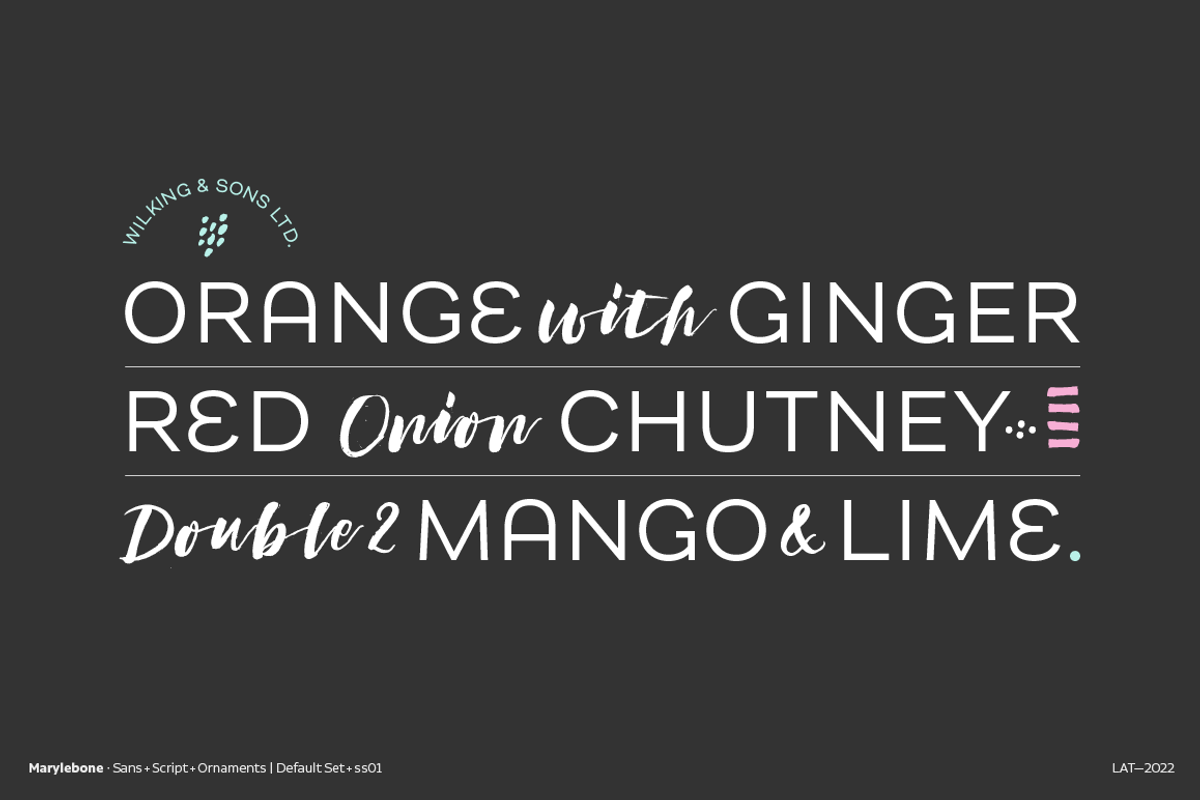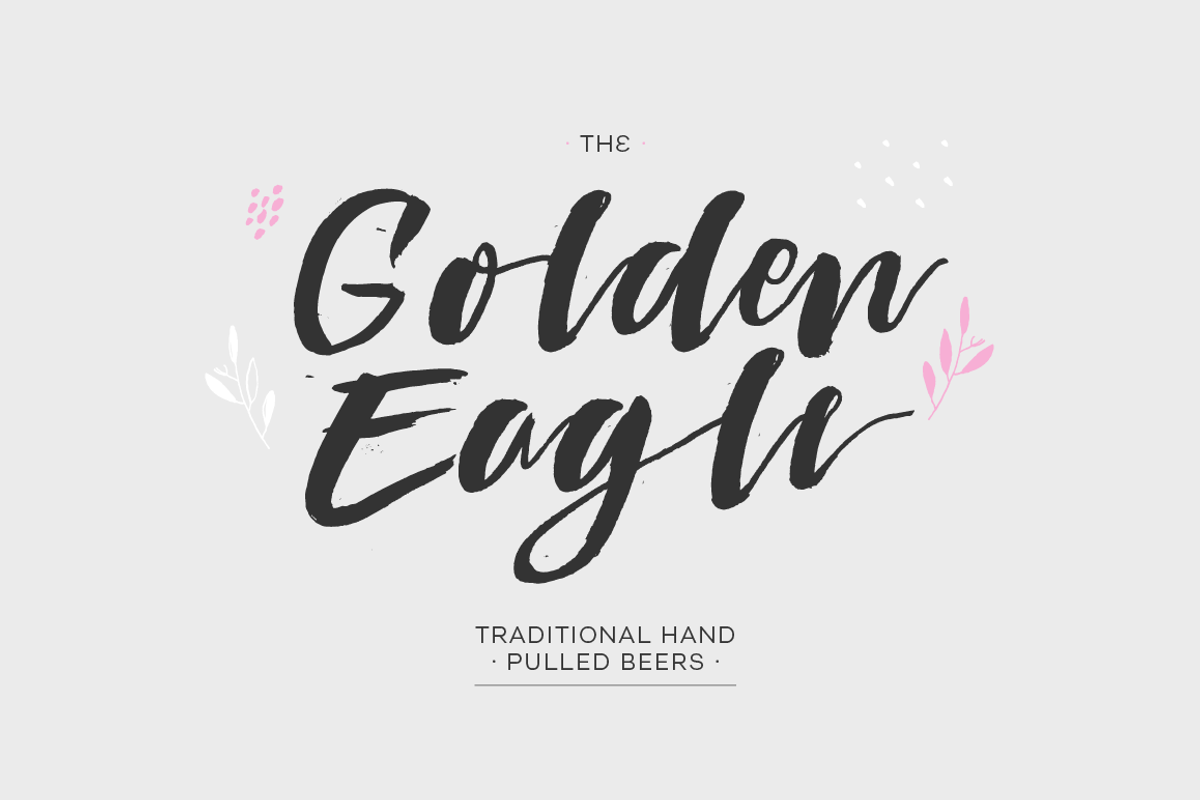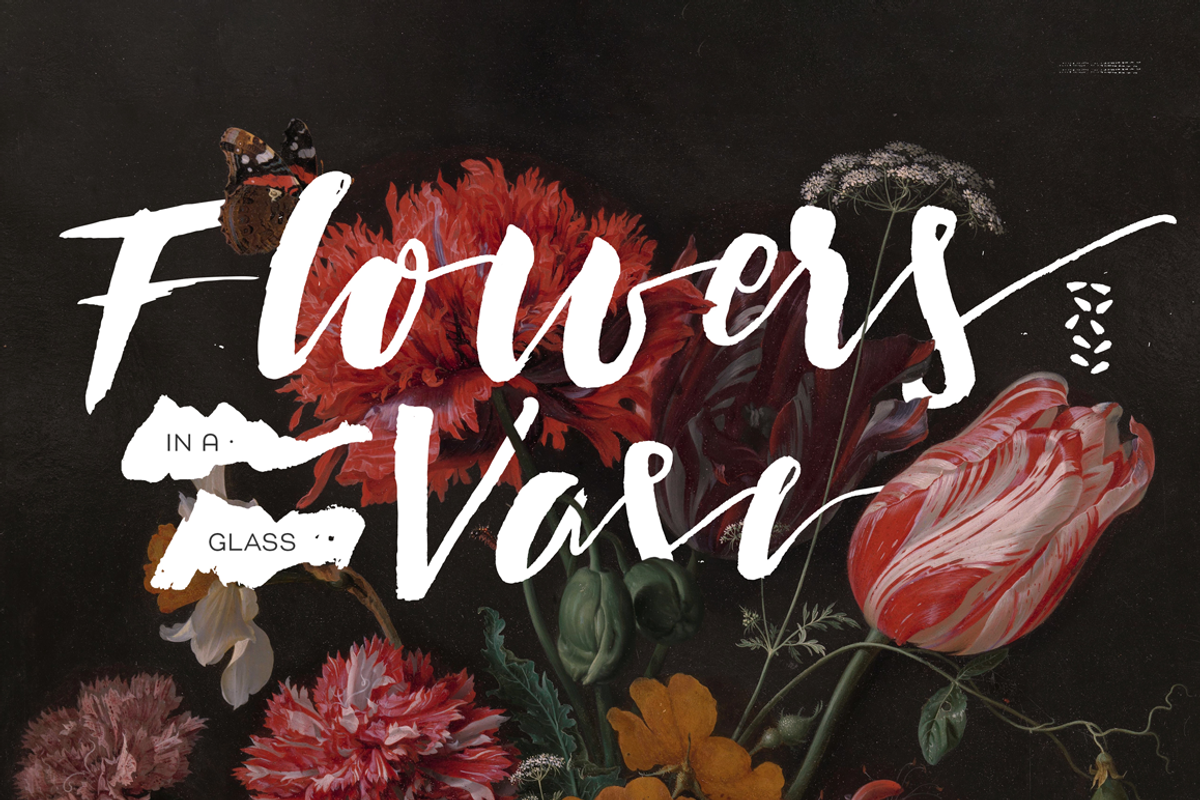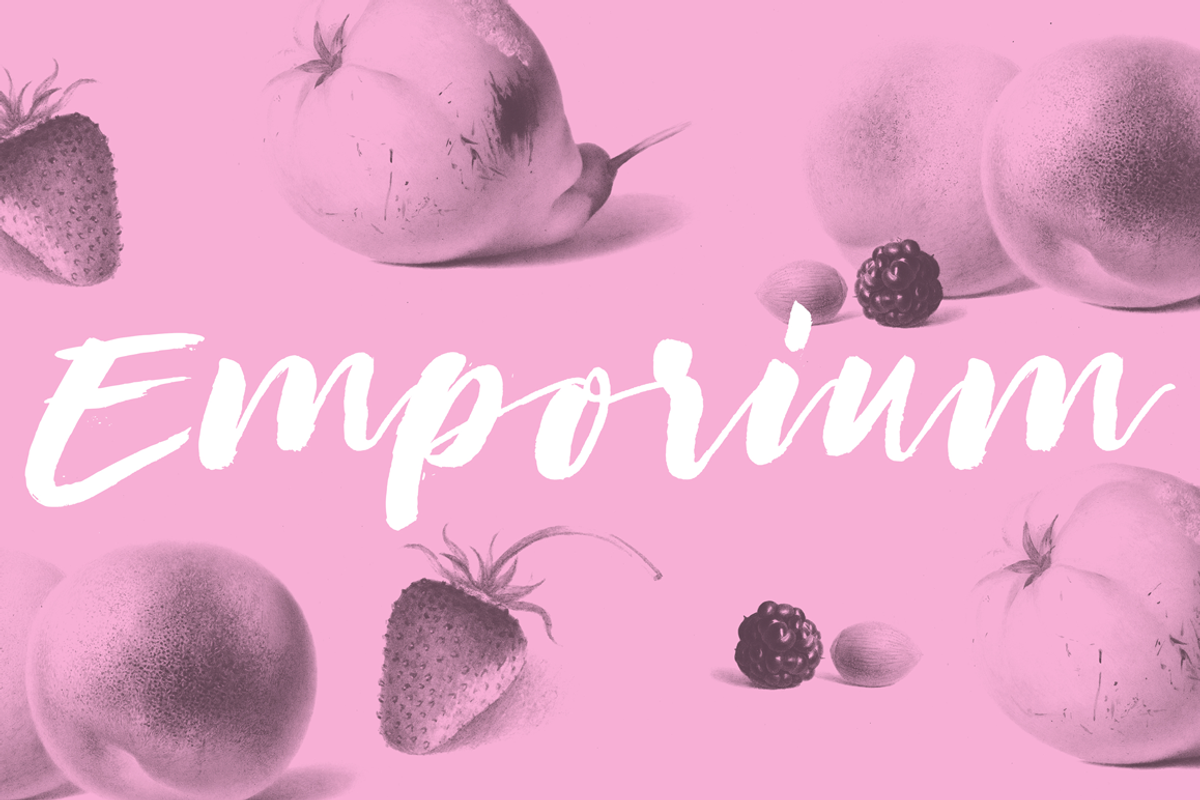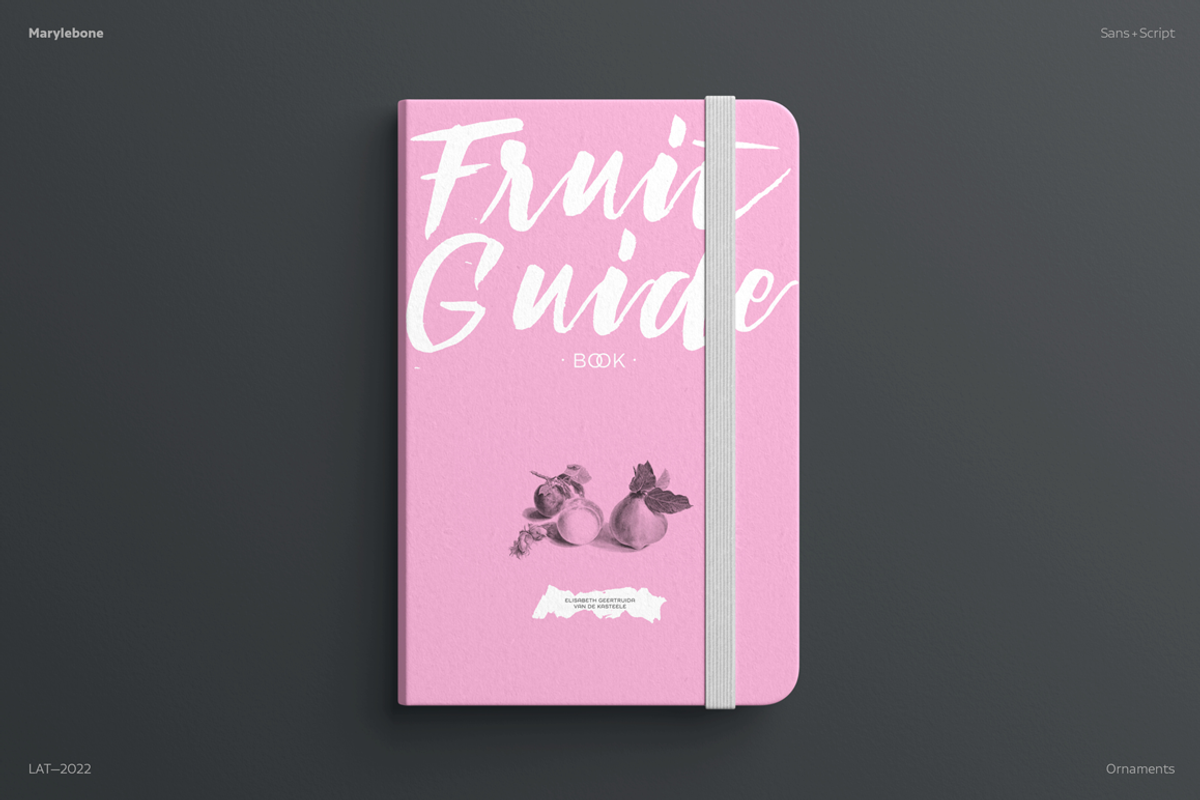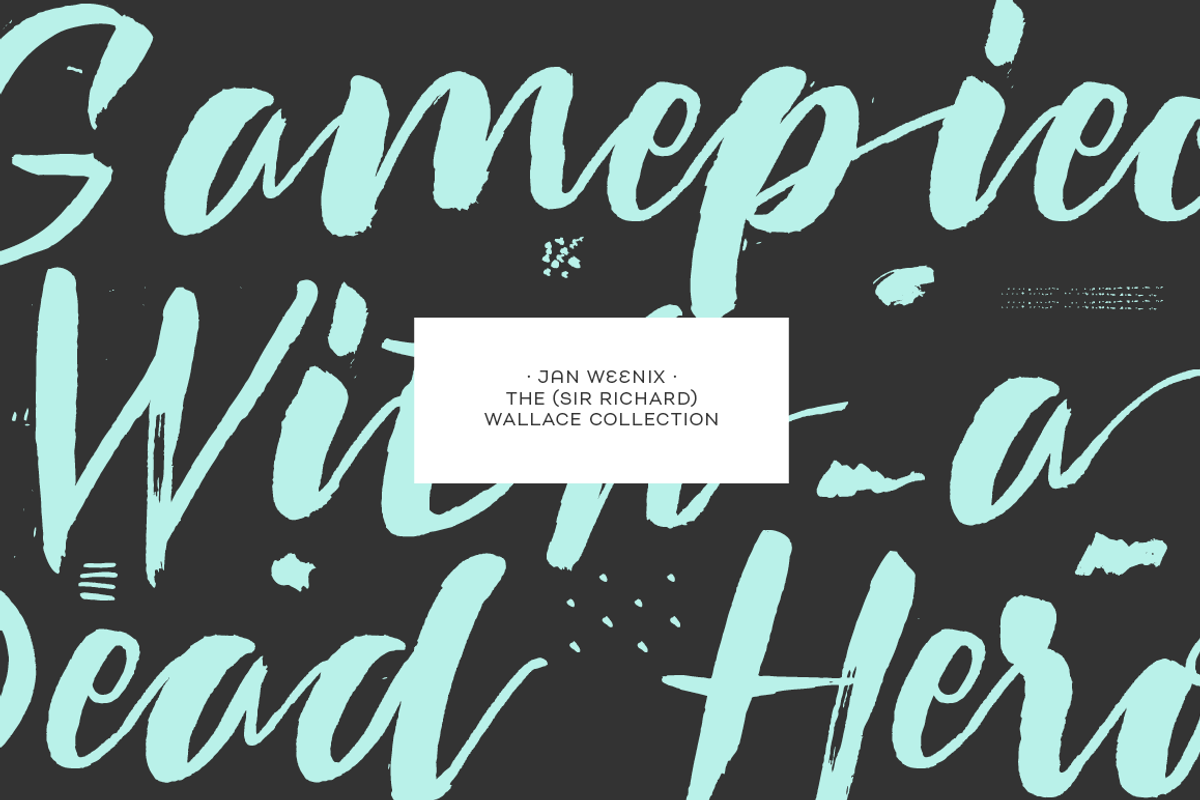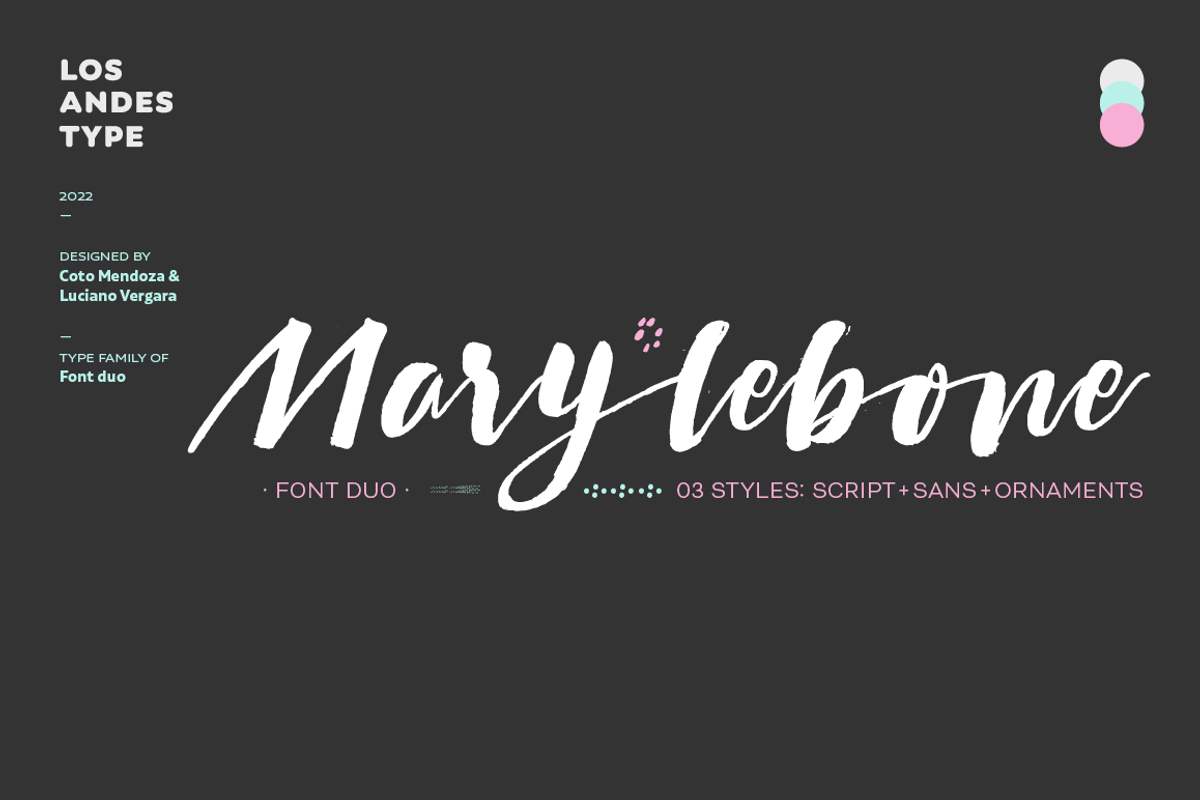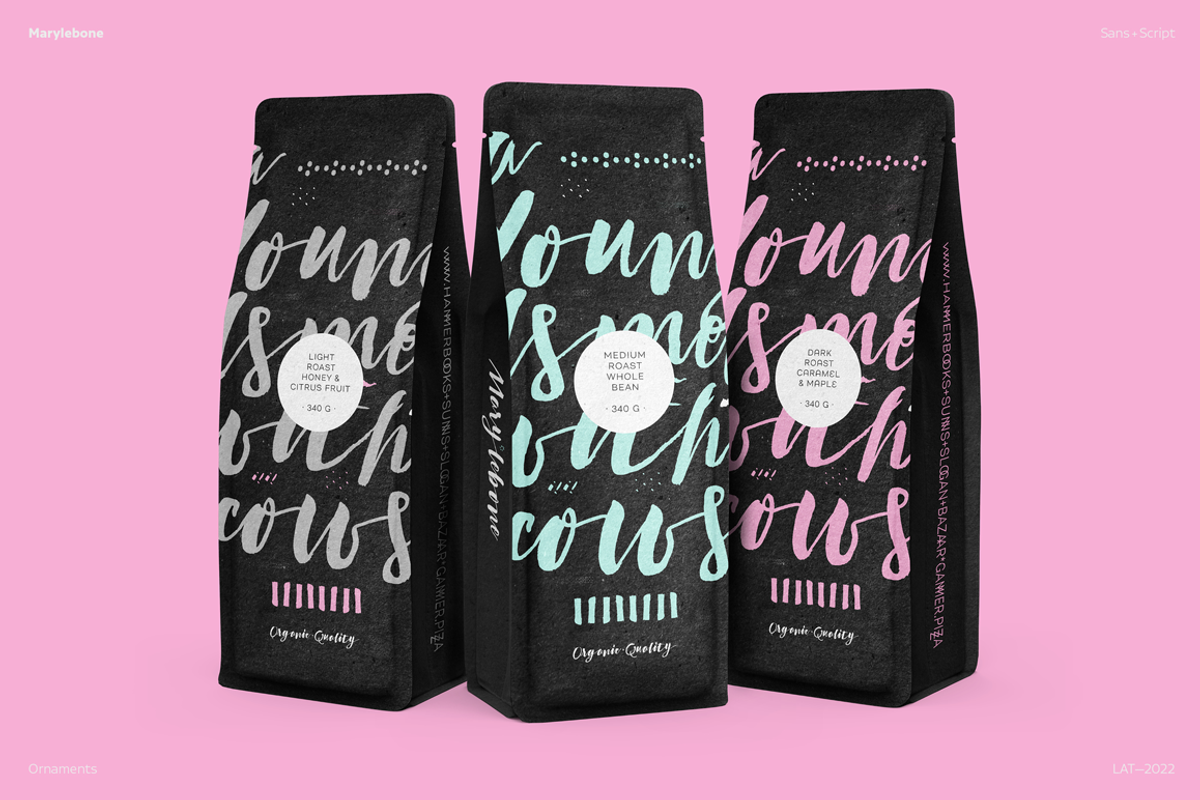
Marylebone
Marylebone is a font duo inspired by its namesake neighborhood, located in central London. Marylebone was designed to compose short text for advertisements, blackboards and shop windows in coffee shops, small bookstores, flower shops and local shops. The set is made up of a hand made brush script, composed of 519 characters including ligatures, initials and terminals; as well as a very clean, geometric unicase sans serif with some alternates and ligatures that can double as monograms, it also includes a hand-drawn floral dingbat set.
Marylebone allows you to design beautiful compositions for packaging, advertising, quotes, wall art, branding, photography overlays, magazines, motion graphics, scrapbooking, planners, window art, tags, tote bags and much more, thanks to its irregular appearance that gives a unique personality to your design projects.